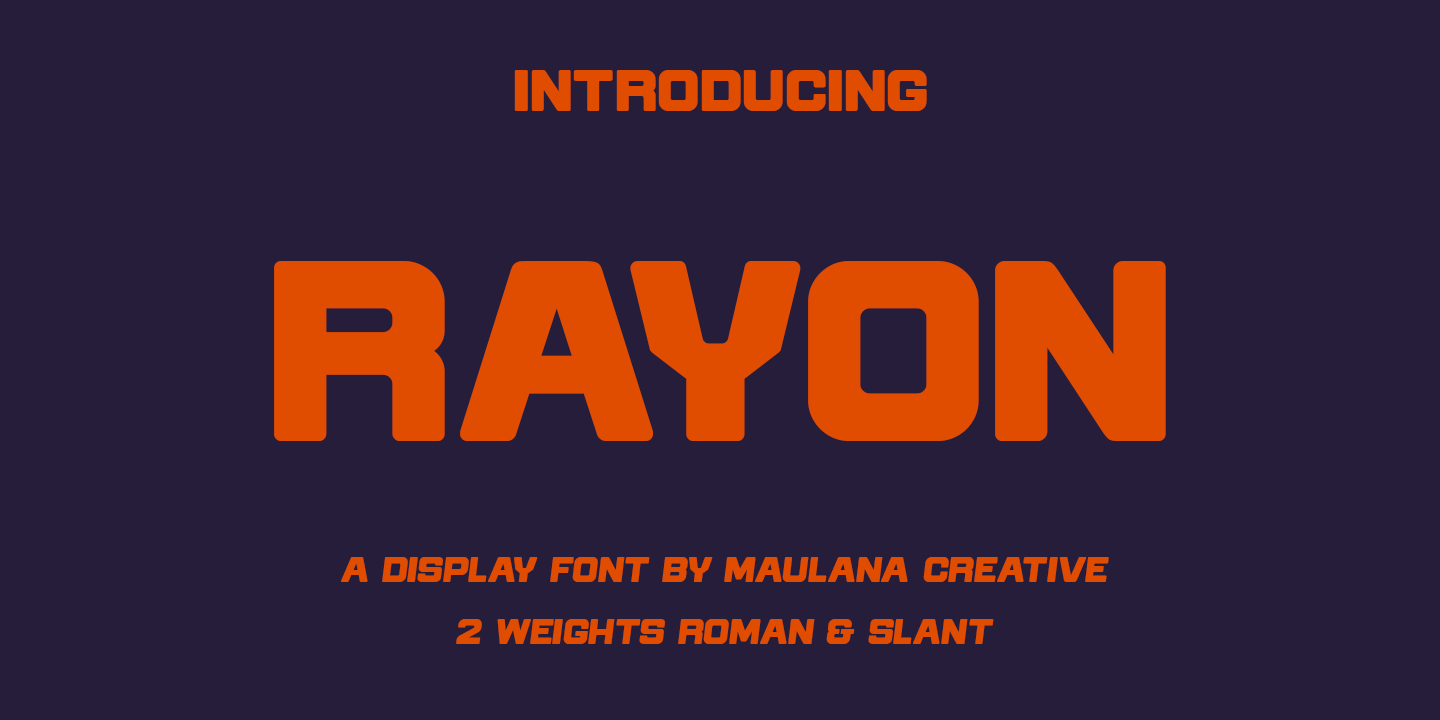
MC Rayon Font is ideal for hip-hop album covers, urban streetwear brands, rap battle event posters, music producer logos, underground club promotions, breakdancing competition flyers, graffiti-inspired designs, street art exhibitions, youth culture marketing, urban fashion campaigns, beatboxing events, and contemporary music streaming platforms.
This font is exciting because it pulses with the authentic rhythm and raw energy of street culture and hip-hop heritage, featuring bold, angular letterforms that flow with the same lyrical precision and urban swagger that defines legendary MC performances. The dynamic character design captures the improvisational spirit and rhythmic flow of freestyle rap, while maintaining the sharp edge and street credibility that resonates with authentic hip-hop culture. Each letter embodies the confident attitude and creative expression that transforms words into powerful musical statements on the microphone.
The MC Rayon Font family includes regular and bold weights with complete character sets featuring street-style numerals, urban-inspired punctuation marks, and decorative elements that echo the visual language of hip-hop culture. Advanced versions may offer additional stylistic variants with enhanced graffiti-like effects, alternate characters that create rhythmic connections, and symbolic ornaments inspired by turntables, microphones, and street art aesthetics.
Whether you're developing hip-hop artist branding, creating urban music promotional materials, or designing street culture content, MC Rayon Font Free Download provides the authentic street credibility and rhythmic energy your project needs to keep it real and command respect. This typeface transforms ordinary text into lyrical expressions that celebrate the power of words and the culture of creative expression. The font's urban aesthetic makes it perfect for brands and artists who value authenticity and street culture heritage. Hip-hop enthusiasts and urban designers will appreciate how this font brings genuine MC spirit to their work with its authentically rhythmic and street-smart character.